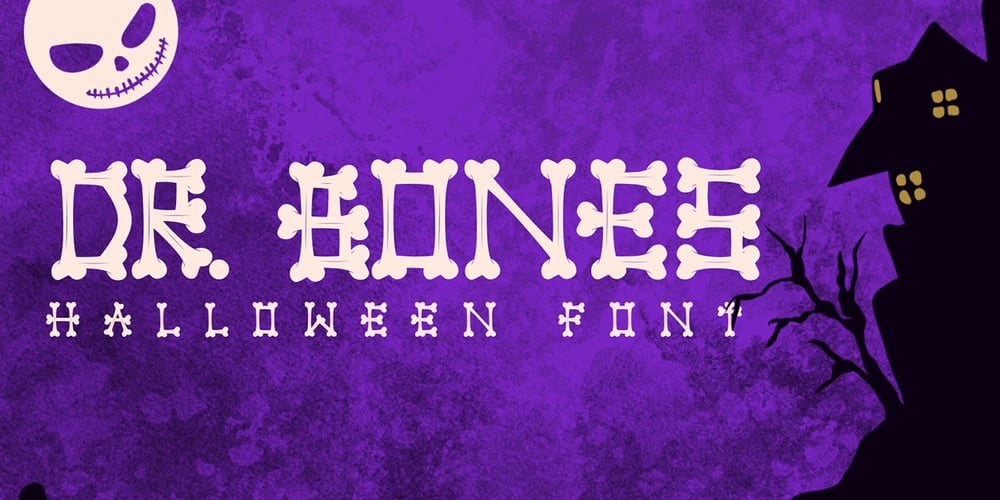
Dr. Bones Font Family was designed by Sipanji and published by Sipanji21. Dr. Bones contains 1 styles and family package options. Dr Bones is one of those halloween themed fonts, it looks like a series of bones. Dr. Bones is good for some Halloween themed graphic designs, such as logos, banners, t-shirts, posters, products, advertising, or other designs. make your design more attractive with Dr. Bones Font.